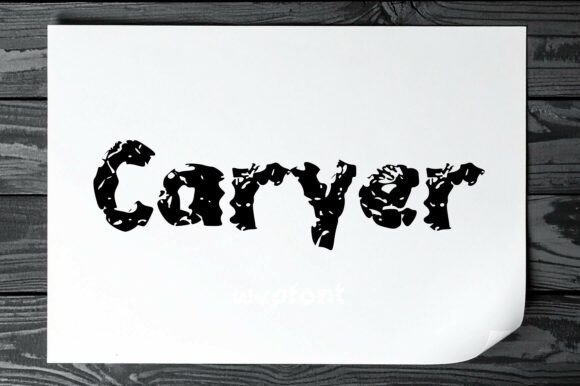
Unleash the Raw Allure of Caryer Font in Your Designs
Have you ever been in the midst of a design project, only to find yourself stuck on one thing: the perfect font? I recall a particularly frustrating experience while working on a vintage-themed branding project. My client wanted a font that exuded a sense of ruggedness and authenticity, but everything I tried seemed to fall flat. That was until I stumbled upon Caryer Font. ✨
Caryer is a display font that embodies the gritty authenticity and untamed power of a bygone era. Its robust and bold text, coupled with a distinctive distressed finish, makes it an instant attention-grabber. In this article, we’ll dive into the world of Caryer Font, exploring its features, uses, and what makes it an excellent addition to your design toolkit.
A First Impression: What I Love About Caryer Font
So, what makes Caryer Font so special? Here are a few things that immediately caught my attention:
- ✅ Unique Distressed Texture: The organic, weathered look of Caryer Font is unparalleled. Each character is infused with a sense of history, as if it’s been sculpted by time and natural elements.
- ✅ Comprehensive Character Set: Caryer boasts a full range of upper and lower case letters and numbers, giving designers the creative flexibility they need.
- ✅ Instant Authenticity: Whether you’re working on heritage branding, rustic event marketing, or vintage attire designs, Caryer Font instantly conveys a sense of rugged aesthetic charm.
While Caryer Font is undoubtedly a powerful tool, there are a few things to keep in mind:
- ⚠️ Legibility at Small Sizes: As with many display fonts, Caryer can become difficult to read at smaller sizes. Be sure to use it at larger sizes or for headlines.
- 🤔 Pairing with Other Fonts: Caryer’s bold, distressed texture can be overwhelming when paired with other fonts. Choose complementary fonts carefully to avoid visual overload.
Exploring Alternatives to Caryer Font
While Caryer Font is undoubtedly unique, there are other fonts that share similar characteristics. Here are a few alternatives to consider:
- Raleway: A elegant, distressed font with a refined feel. Use for high-end branding or luxury designs.
- Playfair Display: A bold, luxurious font with a vintage flair. Ideal for headlines and titles.
- Rockwell: A classic, geometric font with a rugged edge. Suitable for industrial or construction-themed designs.
- Josefin Slab: A distressed, slab-serif font with a vintage vibe. Great for editorial designs or branding projects.
The Story Behind Caryer Font
Caryer Font was inspired by the weathered signage and rustic metal stamps of yesteryear. Its creator sought to capture the essence of a bygone era, when craftsmanship and authenticity were paramount. The result is a font that exudes a sense of ruggedness and timelessness.
| What type of projects is Caryer Font best suited for? | Caryer Font is ideal for heritage branding, rustic event marketing, adventurist-themed graphics, vintage attire designs, and other projects that require a firm, enduring image. |
With Caryer Font, you can add a touch of raw allure and gritty authenticity to your designs. Its unique distressed texture and comprehensive character set make it an excellent choice for designers, crafters, and creative hobbyists. So why not give Caryer Font a try and see how it can elevate your next design project? 🚀